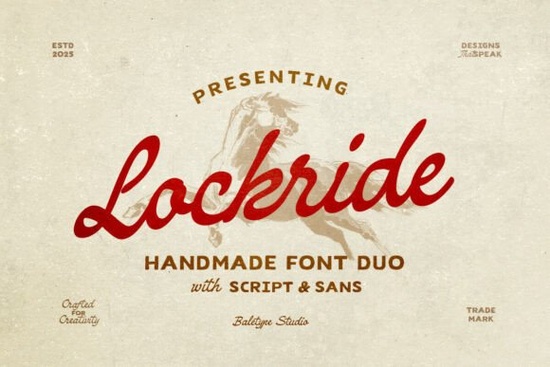
If you're working on a design that calls for rugged charm with a nostalgic feel, the Lockride Font might be exactly what you need. This vintage font duo pairs a hand-lettered sans-serif with a complementary script both crafted to echo old-school signage and classic adventure aesthetics. Whether you’re designing a poster for a hiking brand, a logo for an outdoor gear shop, or even a quote graphic for social media, Lockride brings warmth and authenticity without feeling overly stylized.
What makes Lockride stand out from other vintage fonts?
Unlike many retro fonts that lean heavily into one style either blocky or overly ornate Lockride offers balance. The sans-serif is clean but retains subtle hand-drawn irregularities, giving it character without sacrificing readability. The script counterpart flows naturally, mimicking real handwriting you’d see on vintage travel posters or expedition journals. Together, they create visual contrast while staying harmonious.
Another practical advantage: Lockride supports multiple languages. If your audience extends beyond English-speaking markets, this broad compatibility saves time and avoids last-minute font swaps. That’s especially useful for print-on-demand sellers or small businesses creating global-facing products like apparel, mugs, or wall art.
When should you use Lockride in your projects?
This font duo shines in contexts where authenticity and approachability matter. Think:
- Outdoor branding – Trail guides, camping gear labels, national park merch
- Adventure-themed books or zines – Covers, chapter headers, pull quotes
- Handmade product packaging – Especially for natural, rustic, or heritage-style goods
- Social media graphics – Inspirational quotes paired with nature photography
Because both fonts are hand-lettered, they avoid the sterile uniformity of digital typefaces. That human touch resonates well with audiences who value craftsmanship ideal if you’re targeting eco-conscious shoppers, vintage enthusiasts, or DIY communities.
How does Lockride compare to other script and sans combos?
If you’ve browsed Creative Fabrica’s script fonts before, you might be familiar with options like Preppy Barbie, which leans playful and modern, or BohoBaby, designed for free-spirited, earthy designs. Lockride sits in a different lane it’s less whimsical and more grounded, making it better suited for masculine or unisex themes than ultra-feminine aesthetics.
Similarly, while Simple Preppy excels in clean collegiate looks and Blueberry offers delicate, airy letterforms, Lockride embraces texture and weight. It’s also more versatile than brush-style fonts like CasualBrush, which work best for casual, energetic messaging but can lack structure in formal layouts.
Tips for pairing and using Lockride effectively
To get the most out of this duo, consider these practical pointers:
- Use the sans-serif for headlines or short blocks of text its legibility holds up even at smaller sizes.
- Reserve the script for accents: names, taglines, or decorative phrases. Avoid long paragraphs in script to maintain readability.
- Pair with neutral or earth-toned color palettes. Olive green, burnt orange, navy, and cream amplify its vintage-outdoor vibe.
- Add subtle textures like paper grain or light distressing to backgrounds or letterforms for extra authenticity (but don’t overdo it).
And remember: because Lockride already carries strong personality, keep supporting design elements minimal. Let the typography lead.
Who is Lockride best for?
This font is especially useful for:
- Print-on-demand creators building niche stores around hiking, fishing, or road-trip themes
- Small business owners launching local outdoor services (guides, gear rentals, adventure tours)
- Book cover designers working on memoirs, travelogues, or historical fiction
- Crafters making wood signs, tote bags, or enamel pins with inspirational messaging
Before you download: Make sure your project aligns with Lockride’s rugged, nostalgic tone. If you’re aiming for sleek minimalism or futuristic tech vibes, this isn’t the right fit but for anything calling back to campfires, road maps, or vintage exploration, it’s a reliable, expressive choice.